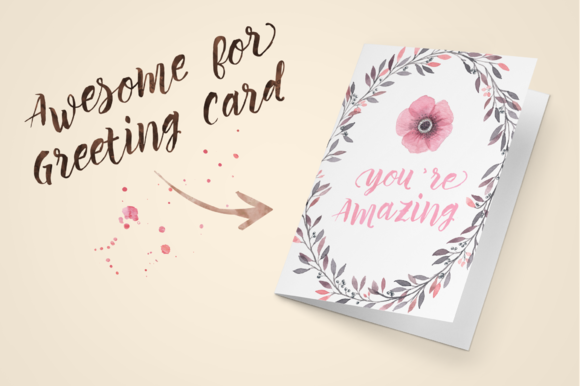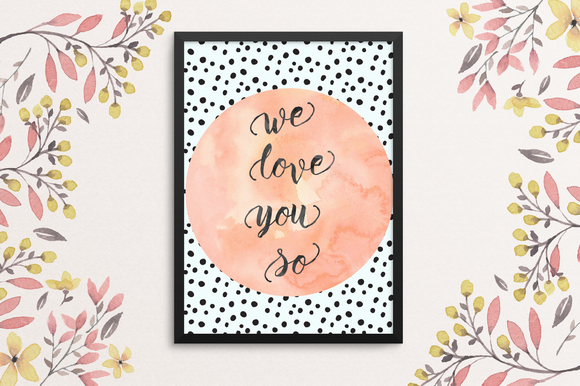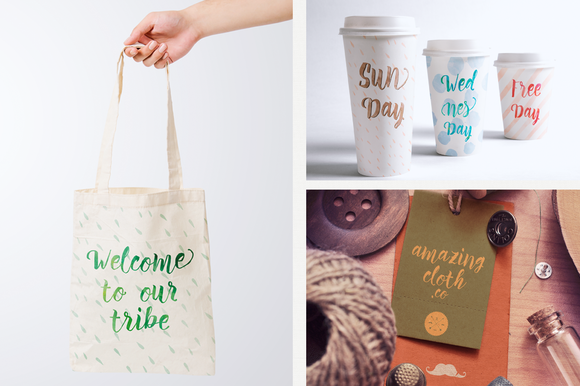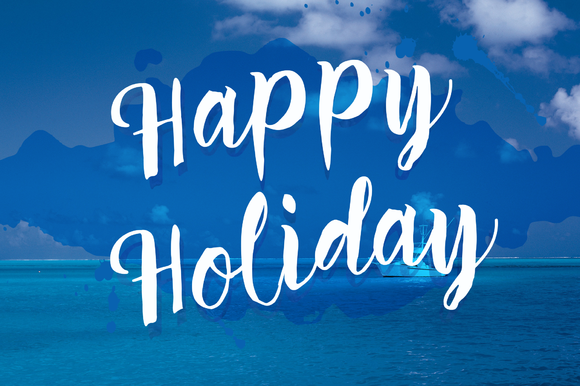
HomeScript FontsPerrota Font Script Fonts Perrota Font FacebookXPinterestWhatsApp Perrota Font Poster 2 Perrota Font Poster 3 Perrota Font Poster 4 Perrota Font Poster 5 About Perrota Font The Perrota Typeface is a beautiful hand Painting with a natural look. DOWNLOAD ON CREATIVE FABRICAThis font is sold and delivered by Creative Fabrica. Font Canyon may earn a commission if you buy through this link. People also explored Merry Christmas Font Louis Robert Font Feed Your Soul Font Charming Winter Font Entry Point Note Font California Signature Font Holiday Font Frankfurt Font Andini Font 269 0 TagsPerrota Font Previous articleScriptease FontNext articlePennello Font LEAVE A REPLY Cancel reply Comment: Please enter your comment! Name:* Please enter your name here Email:* You have entered an incorrect email address! Please enter your email address here Website: Save my name, email, and website in this browser for the next time I comment. Personal Use Free Styledeep Personal Use Free Read more about this font Sheiloria Personal Use Free Read more about this font Strasua Personal Use Free Read more about this font Twisty Girlz Personal Use Free Read more about this font BLOG Free Fonts Risk: Why Free Fonts Can Be Dangerous for Designers Free Fonts Risk: Why Free Fonts Can Be Dangerous for Designers Using free fonts is a common practice in web and graphic design. However, the... Best Fonts for T-Shirt Design – Top 2025 Picks Modern Sans-Serif Fonts That Brands Love in 2025 The 10 Best Handwriting Fonts to Add Personality to Your Designs